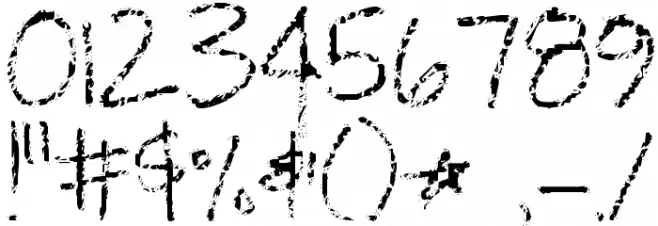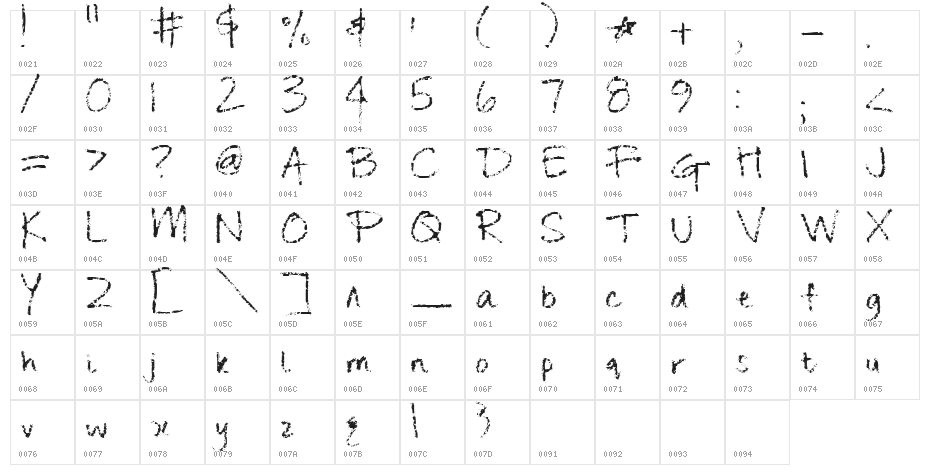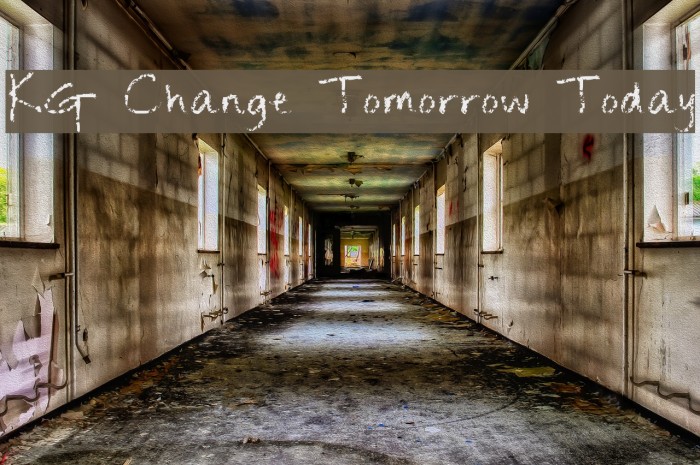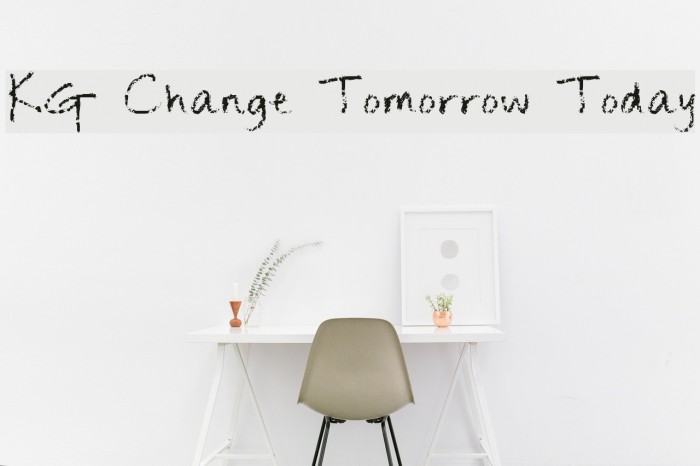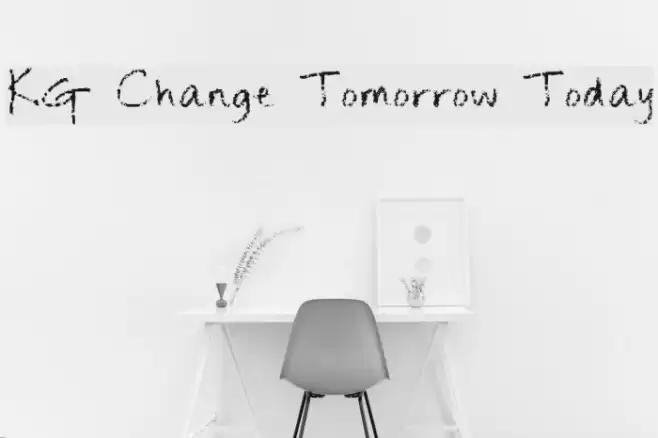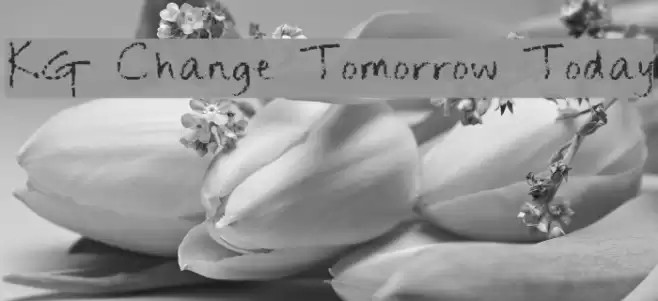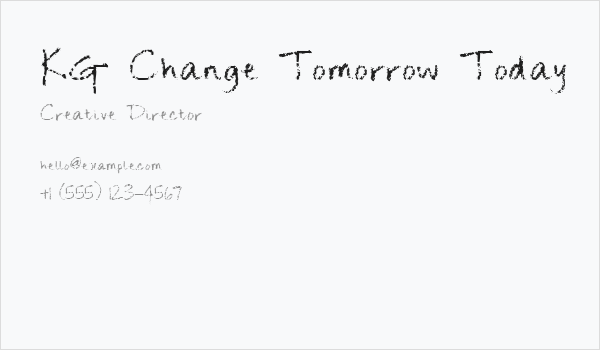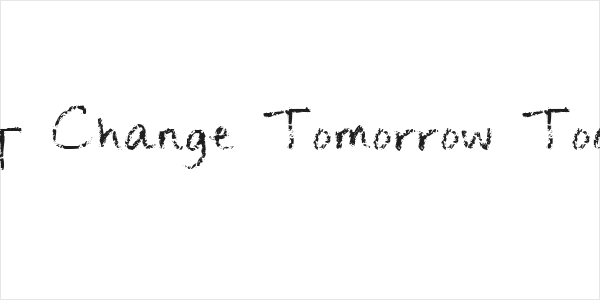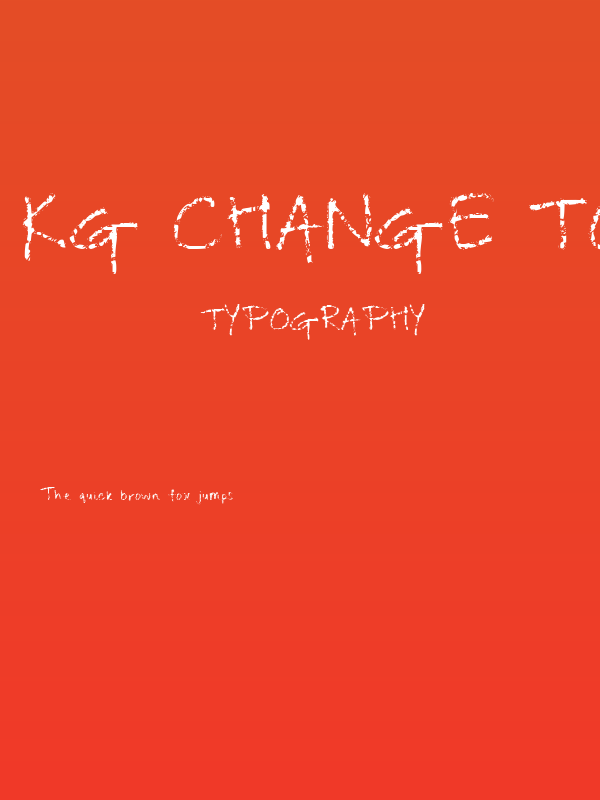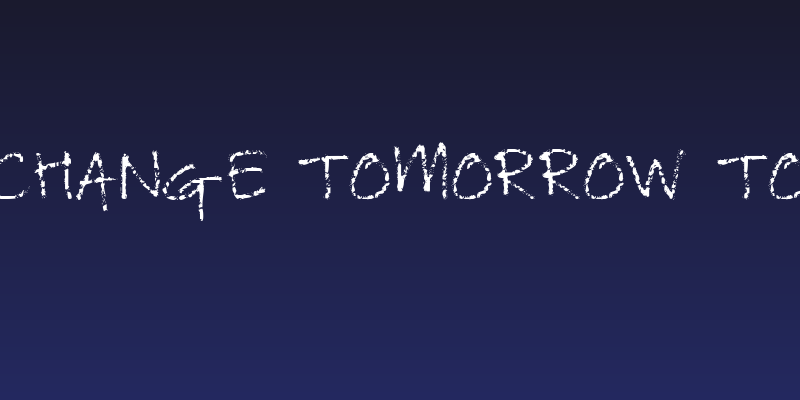
KG Change Tomorrow Today Font
KG Change Tomorrow Today Description
This font features a distressed, grunge style with a hand-drawn appearance. The characters are irregular and textured, giving a rough and edgy look. The uppercase and lowercase letters maintain a consistent style, with jagged edges and a slightly chaotic form. Numbers and special characters follow the same aesthetic, adding to the overall rugged feel. This font is ideal for projects that require a raw, artistic touch, such as album covers, posters, or creative branding. Its unique style makes it stand out, providing a bold statement in any design.
| Overall Style | Grunge, Artistic |
| Proposed Projects | Album covers, posters, creative branding, artistic projects. |